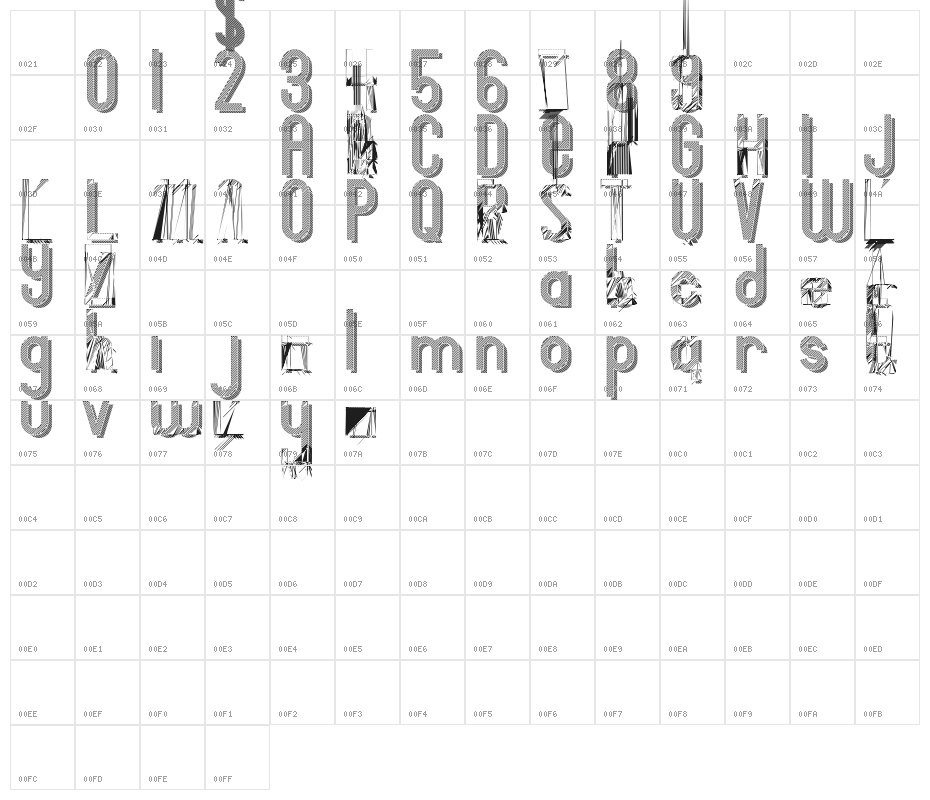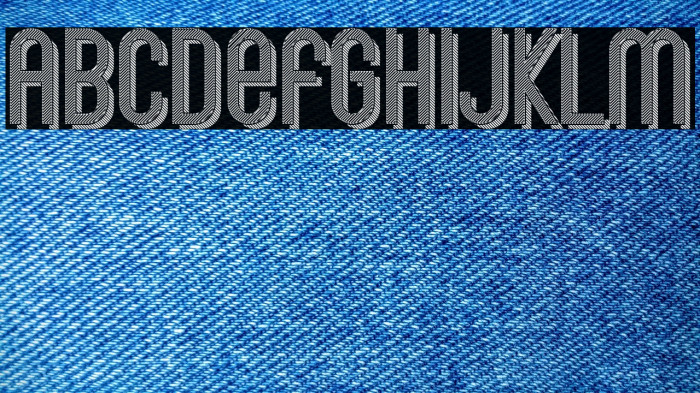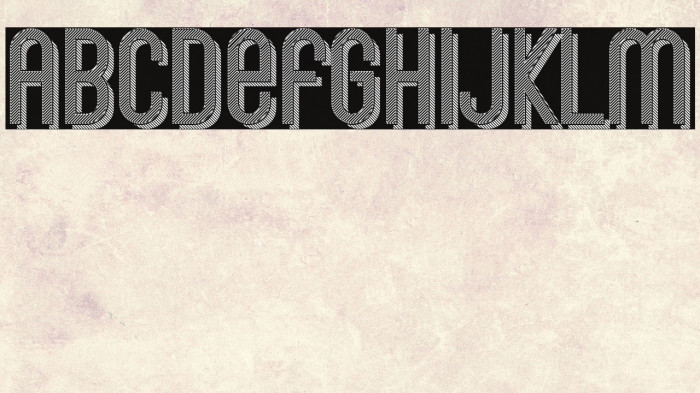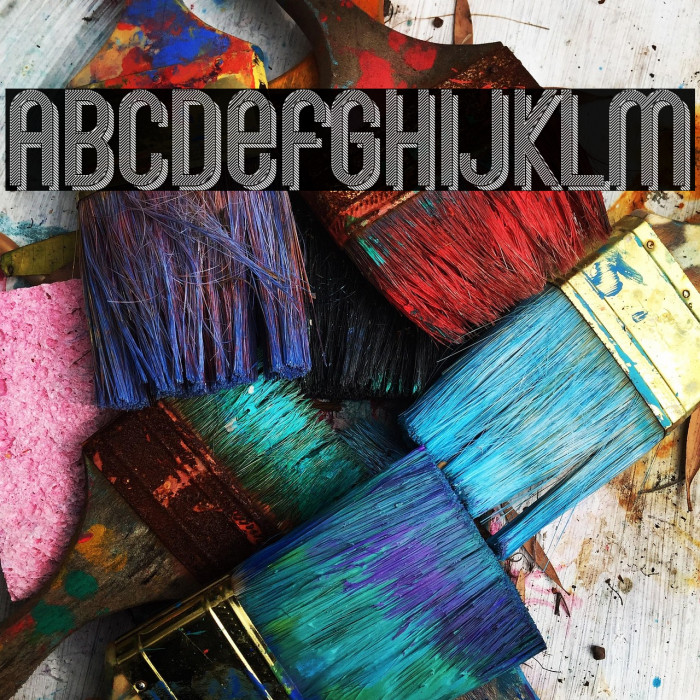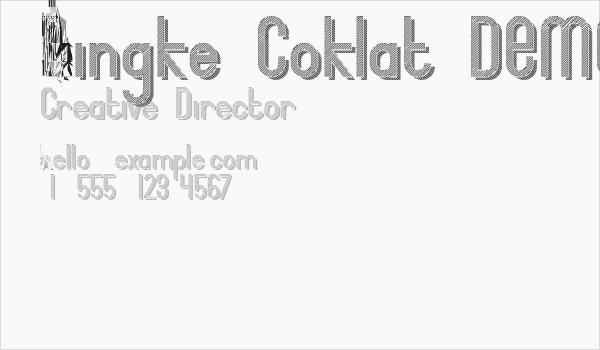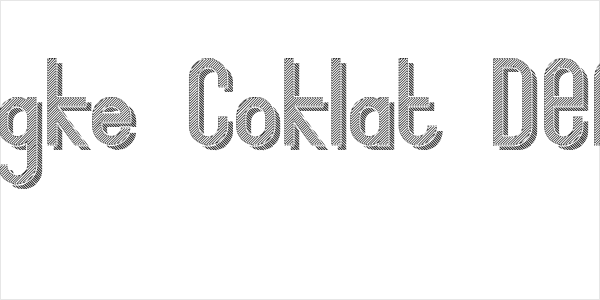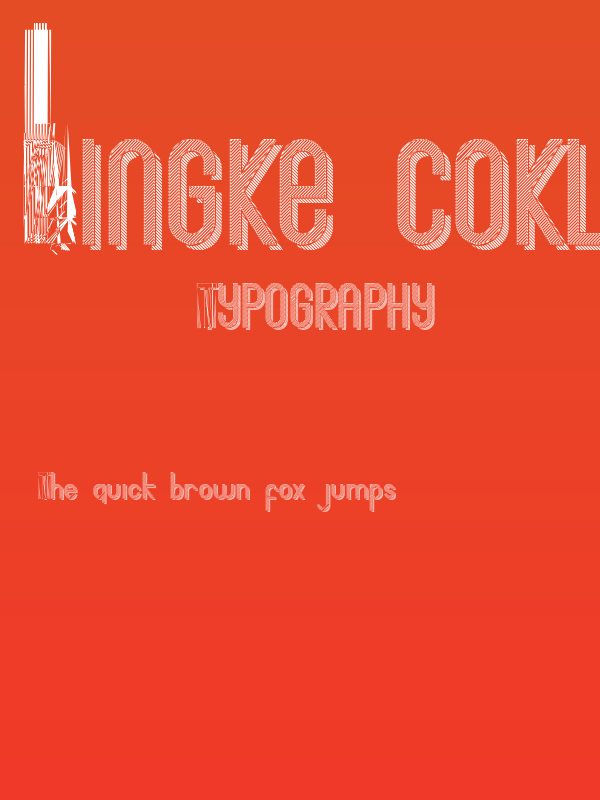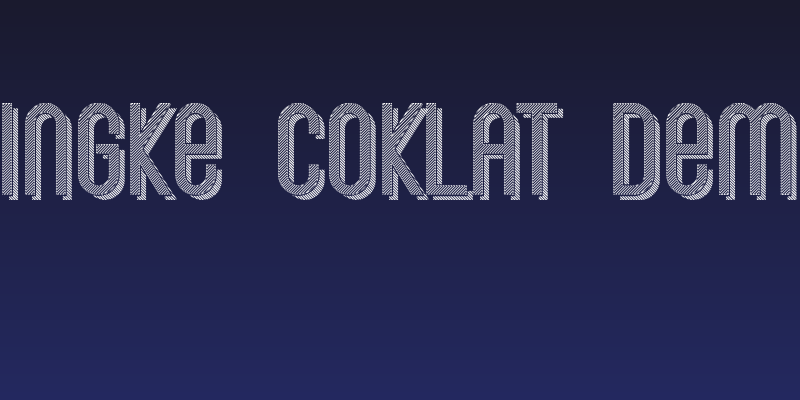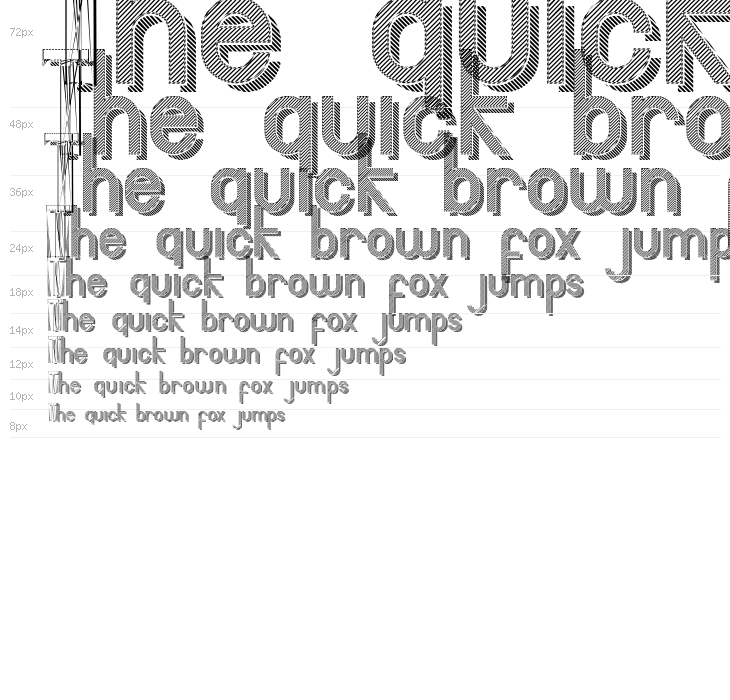
Bingke Coklat DEMO Font
Bingke Coklat DEMO Description
This font features a unique and intricate design characterized by diagonal hatching within each character, creating a textured and dynamic appearance. The letters are bold and have a consistent width, giving them a strong presence. The uppercase and lowercase letters maintain a uniform style, with rounded edges that soften the overall look. The numbers and special characters follow the same design principles, ensuring a cohesive visual identity. This font's decorative nature makes it stand out, while its geometric structure provides a modern touch.
| Proposed Projects | Ideal for branding, poster design, and any project requiring a bold, eye-catching typeface. |